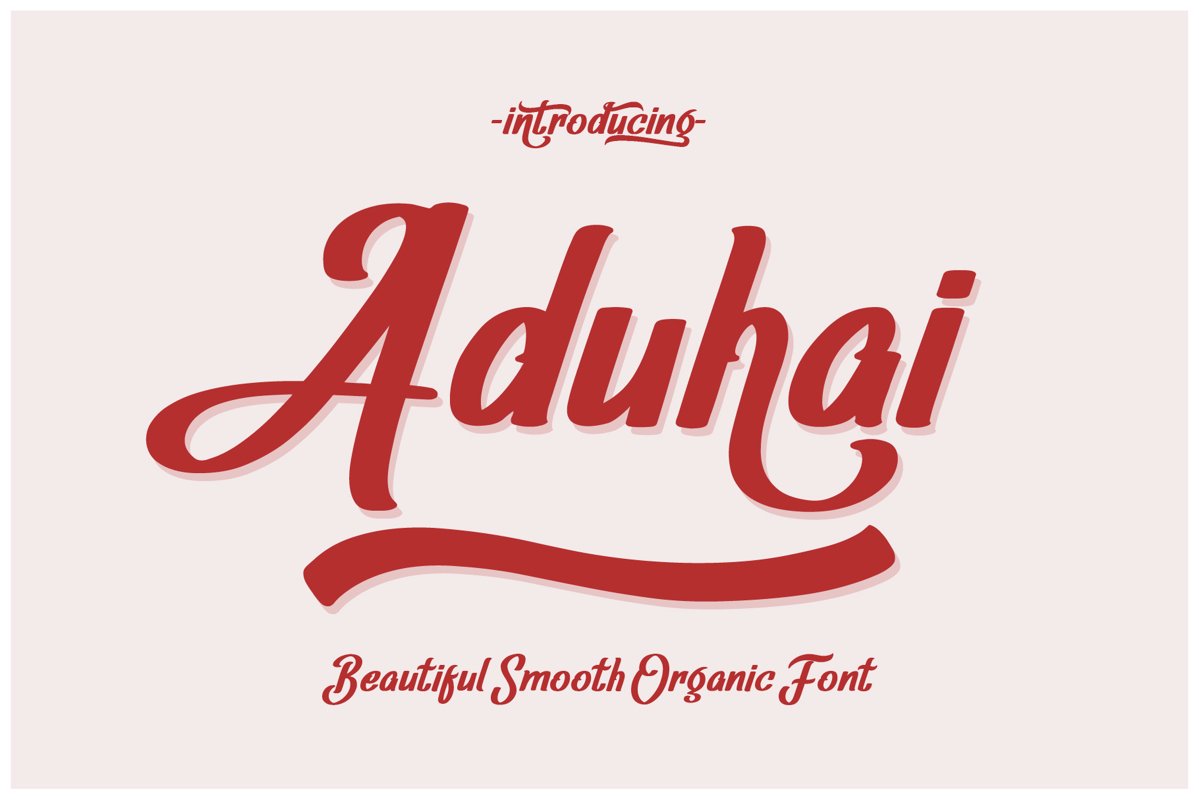
Aduhai
AduhaiSwashes
Aduhai
Introducing A new beautifull, smooth and organic display typeface called Aduhai. The inspirations come from nature beauty, summervibe, beach and organic feel that surround us. Aduhai have Opentype Features and multilingual accent alongside with the numeric and symbols. Aduhai is very smooth, it's perfect for any purpose, logotype, branding, clothing, posters, advertisement, packaging, and many more as you feel fit. It also have the Aduhai Swashes to complete your projects.